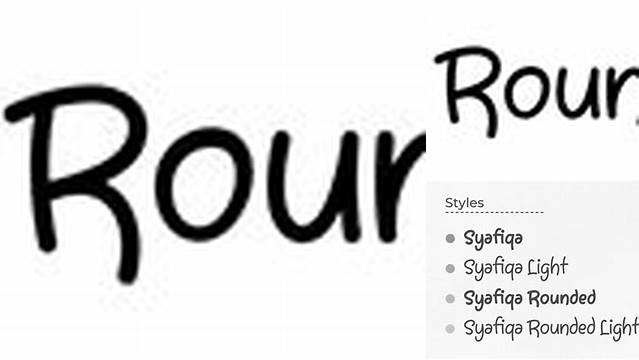
Syafiqa Rounded Light: Free Font For Modern Designs
Hey guys! Are you on the hunt for a fresh, modern, and versatile font to elevate your design projects? Look no further! The Syafiqa Rounded Light Free Font might just be the perfect solution. In this article, we'll dive deep into everything you need to know about this fantastic typeface, from its unique characteristics and ideal use cases to where you can download it and how to best utilize it in your designs. Get ready to explore the world of Syafiqa Rounded Light and discover how it can transform your creative endeavors!
What Makes Syafiqa Rounded Light So Special?
Let's kick things off by understanding what makes the Syafiqa Rounded Light Free Font stand out from the crowd. This font boasts a distinctive rounded design, giving it a friendly and approachable feel. The "light" weight adds a touch of elegance and sophistication, making it ideal for projects that require a clean and minimalist aesthetic. Think of logos, website headers, brochures, and even mobile app interfaces – Syafiqa Rounded Light can seamlessly integrate into a wide array of design scenarios. One of the key aspects that make Syafiqa Rounded Light special is its legibility. The rounded terminals and open forms of the letters contribute to a clear and readable typeface, even at smaller sizes. This is crucial for ensuring that your message is easily conveyed to your audience, whether they're viewing it on a large screen or a mobile device. Furthermore, the font's versatility stems from its simplicity. The clean lines and unadorned design allow it to pair well with other fonts, giving you the flexibility to create unique and visually appealing typography compositions. You can combine it with a bold sans-serif for a striking contrast or use it alongside a classic serif for a more refined look. The possibilities are endless! In addition to its aesthetic qualities, Syafiqa Rounded Light often comes with a comprehensive character set, including uppercase and lowercase letters, numerals, punctuation marks, and sometimes even special symbols. This ensures that you have all the necessary tools to create complete and polished designs. Many designers appreciate the fact that it can often be used for both headings and body text, providing a cohesive and harmonious visual experience. Moreover, the availability of Syafiqa Rounded Light as a free font makes it an incredibly accessible option for designers of all levels. Whether you're a seasoned professional or just starting out, you can leverage this typeface to enhance your projects without breaking the bank. This democratization of design resources is a significant benefit, empowering creatives to experiment and explore new typographic horizons. So, in a nutshell, Syafiqa Rounded Light's unique combination of rounded aesthetics, light weight, legibility, versatility, and free availability makes it a truly special font in the design landscape. It's a typeface that can bring a touch of modern elegance to any project, while remaining approachable and easy to use. Let’s delve further into where you can use this fantastic font!
Ideal Use Cases for Syafiqa Rounded Light
Now that we know what makes Syafiqa Rounded Light so special, let's explore its ideal use cases. This font is a chameleon, adapting beautifully to various design contexts. Its clean and friendly aesthetic makes it particularly well-suited for projects that require a touch of approachability and modernity. For example, Syafiqa Rounded Light shines in branding materials. Think of logos for startups, small businesses, or organizations that want to project a friendly and trustworthy image. The rounded letterforms convey a sense of warmth and openness, making it an excellent choice for brands that prioritize customer relationships. In the digital realm, Syafiqa Rounded Light is a fantastic option for website headers and navigation menus. Its legibility ensures that visitors can easily read and navigate your site, while its clean design contributes to a professional and user-friendly experience. Similarly, it's a great fit for mobile app interfaces, where clarity and readability are paramount. Beyond branding and digital design, Syafiqa Rounded Light also excels in print materials. Consider using it for brochures, flyers, posters, and even business cards. Its light weight adds a touch of sophistication, making your printed materials stand out. The font's versatility also extends to editorial design. It can be used for headings, subheadings, and even body text in magazines and newsletters. Its clean lines and rounded terminals create a visually appealing and easy-to-read layout. If you're working on a project that requires a balance between modernity and approachability, Syafiqa Rounded Light is definitely worth considering. It's a font that can elevate your designs while maintaining a sense of warmth and friendliness. Furthermore, it’s particularly effective in designs targeting a younger audience or those that aim to project a casual and contemporary vibe. For instance, you might find it used in marketing materials for children's products, educational resources, or creative workshops. The gentle curves and soft edges of the typeface make it less intimidating and more engaging for younger viewers. On the other hand, its simplicity and clarity also make it suitable for more professional settings. It can be used in presentations, reports, and other business documents where a clean and readable font is essential. The light weight of the typeface adds a touch of elegance without being overly distracting. In essence, Syafiqa Rounded Light is a versatile workhorse that can handle a wide range of design tasks. Its adaptability and aesthetic appeal make it a valuable addition to any designer's toolkit. So, whether you're crafting a brand identity, designing a website, or creating print materials, this font is definitely one to keep in mind. Now, let’s explore how and where you can actually get your hands on this gem.
Tips for Effectively Using Syafiqa Rounded Light in Your Designs
Okay, so you've downloaded Syafiqa Rounded Light – awesome! Now, let's talk about how to use it effectively in your designs. This font is versatile, but like any design element, it's crucial to use it strategically to achieve the best results. First and foremost, consider the overall tone and message of your project. Syafiqa Rounded Light's friendly and modern aesthetic makes it ideal for designs that aim to project a sense of warmth, approachability, and clarity. If you're working on a project that requires a more formal or traditional feel, you might want to explore other font options. When using Syafiqa Rounded Light, pay close attention to typography best practices. This includes things like kerning, leading, and tracking. Kerning refers to the spacing between individual letters, leading is the vertical space between lines of text, and tracking is the overall spacing between letters in a block of text. Adjusting these settings can significantly impact the readability and visual appeal of your typography. Experiment with different sizes and weights of Syafiqa Rounded Light to create visual hierarchy in your designs. Use larger sizes and bolder weights for headings and subheadings to draw the viewer's eye and guide them through the content. Use smaller sizes and the regular weight for body text to ensure readability. Pairing fonts effectively is another key aspect of good typography. Syafiqa Rounded Light pairs well with a variety of other fonts, but it's important to choose complementary typefaces that create a harmonious visual balance. Consider pairing it with a bold sans-serif for a striking contrast or a classic serif for a more refined look. Avoid using too many different fonts in a single design, as this can create a cluttered and confusing visual experience. Two or three fonts are usually sufficient for most projects. Color plays a crucial role in design, and it can also impact the way your typography looks. When using Syafiqa Rounded Light, consider the color palette of your project and choose colors that complement the font's aesthetic. Light colors and pastel shades can enhance its gentle and approachable feel, while darker colors can add a touch of sophistication. Whitespace, or negative space, is another important element to consider in your designs. Giving your typography room to breathe can improve readability and create a more visually appealing layout. Avoid overcrowding your designs with too much text, and use whitespace strategically to guide the viewer's eye. Before finalizing your design, always test your typography on different devices and in different contexts. This will help you ensure that your text is legible and visually appealing across a range of viewing conditions. Check how the font looks on different screen sizes, in print, and in various lighting conditions. By following these tips and guidelines, you can effectively use Syafiqa Rounded Light in your designs and create visually stunning and impactful results. Remember to experiment, have fun, and let your creativity shine! In conclusion, let's do a quick recap of why this font is a must-have in your design arsenal.
Syafiqa Rounded Light: A Recap and Why It's a Must-Have
Alright guys, let's wrap things up with a quick recap of why the Syafiqa Rounded Light Free Font is a must-have in your design toolkit. We've covered a lot of ground in this article, from the font's unique characteristics to its ideal use cases and how to download and use it effectively. So, what makes Syafiqa Rounded Light so special? Well, for starters, its rounded design gives it a friendly and approachable feel. This makes it an excellent choice for projects that aim to project warmth and trustworthiness, such as branding materials for startups or websites for small businesses. The "light" weight adds a touch of elegance and sophistication, making it suitable for a wide range of design contexts, from digital interfaces to print materials. One of the key benefits of Syafiqa Rounded Light is its versatility. It can be used for headings, subheadings, and body text, providing a cohesive and harmonious visual experience. It also pairs well with a variety of other fonts, giving you the flexibility to create unique and visually appealing typography compositions. Whether you're working on a website, a brochure, or a mobile app, Syafiqa Rounded Light can seamlessly integrate into your design. Legibility is another crucial factor that makes Syafiqa Rounded Light a great choice. The rounded terminals and open forms of the letters contribute to a clear and readable typeface, even at smaller sizes. This is essential for ensuring that your message is easily conveyed to your audience, regardless of the viewing context. And of course, let's not forget the fact that Syafiqa Rounded Light is often available as a free font. This makes it an incredibly accessible option for designers of all levels, from seasoned professionals to aspiring creatives. You can enhance your projects with this fantastic typeface without breaking the bank. In essence, Syafiqa Rounded Light is a font that combines aesthetics, versatility, legibility, and affordability. It's a valuable asset for any designer who wants to create modern, approachable, and visually appealing designs. So, if you're looking for a font that can elevate your projects and help you communicate your message effectively, Syafiqa Rounded Light is definitely one to consider. It’s a font that you'll likely find yourself reaching for time and time again. Whether you're crafting a logo, designing a website, or creating print materials, Syafiqa Rounded Light has the versatility and aesthetic appeal to get the job done. So go ahead, download it, experiment with it, and see how it can transform your designs. You might just find that it becomes your new favorite typeface! And that’s a wrap, guys! Happy designing!